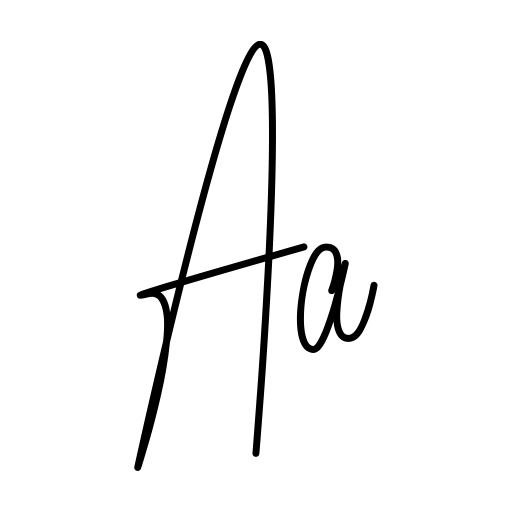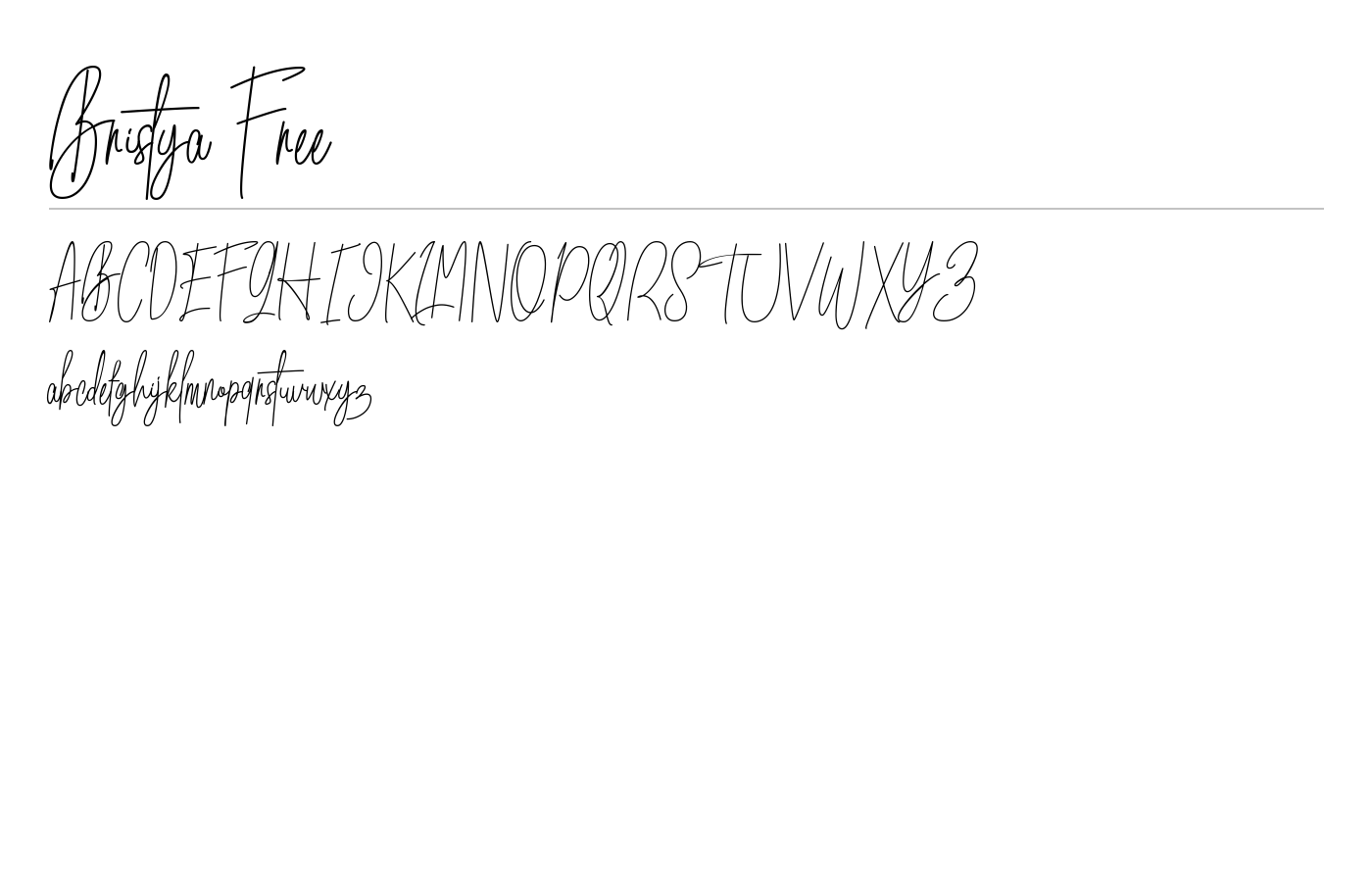
Bristya Free is a delicate, handwritten script font characterized by its thin, graceful strokes and tall, slender letterforms. Its airy and elegant style gives it a personal, intimate feel, making it perfect for branding, invitations, and creative projects that seek a sophisticated yet casual touch. This font works beautifully in headlines or logos where a light, artistic flair is desired.
Bristya Free Font
About Bristya Free Font
| Font family | Bristya Free Font |
| Designer | Akaitype Studio |